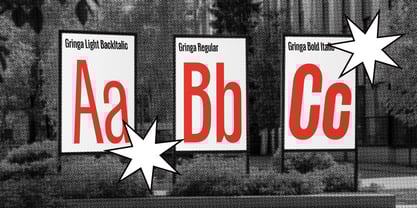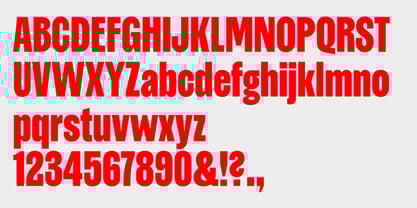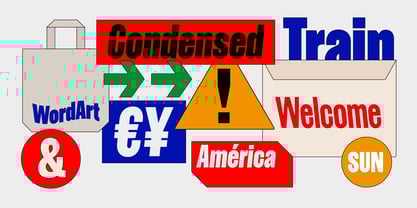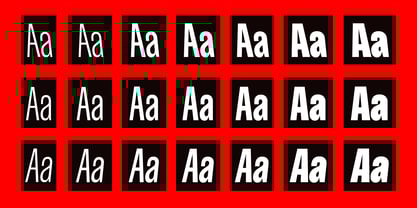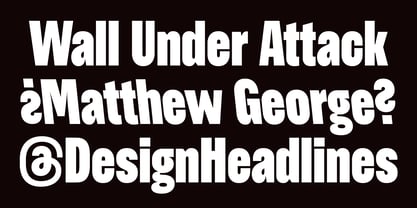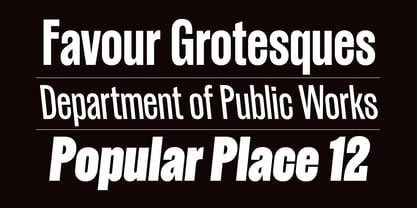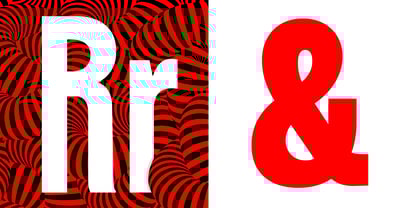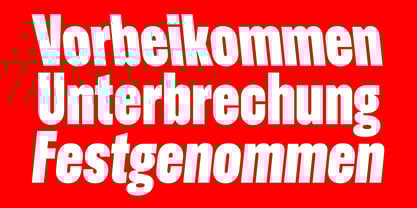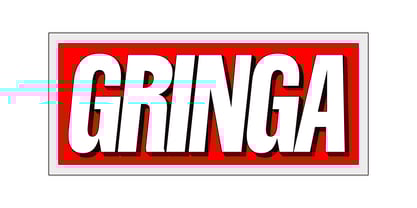
Gringa
by Gspr one
The Gringa Font Family was designed by Gaspar Muñoz and published by Gspr one. Gringa contains 21 styles and family package options.
Gringa is a condensed grotesque typeface inspired by the classic designs of the Stephenson Blake series, but with a more geometric approach and a clean, modern style. Its curves are more refined, and the counterforms are meticulously crafted. The name "Gringa" references the prevalent use of this typographic style in the United States during the 19th century.